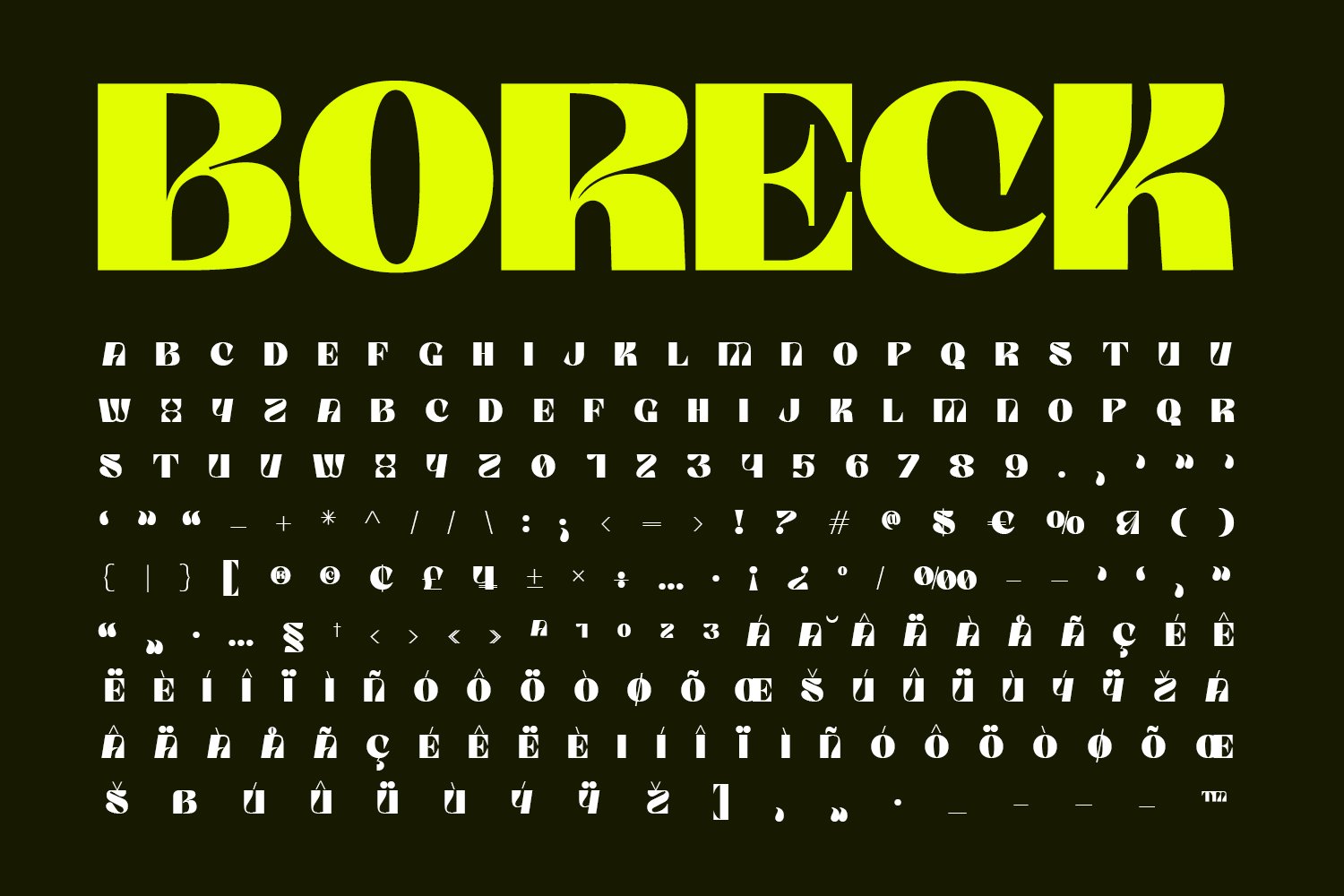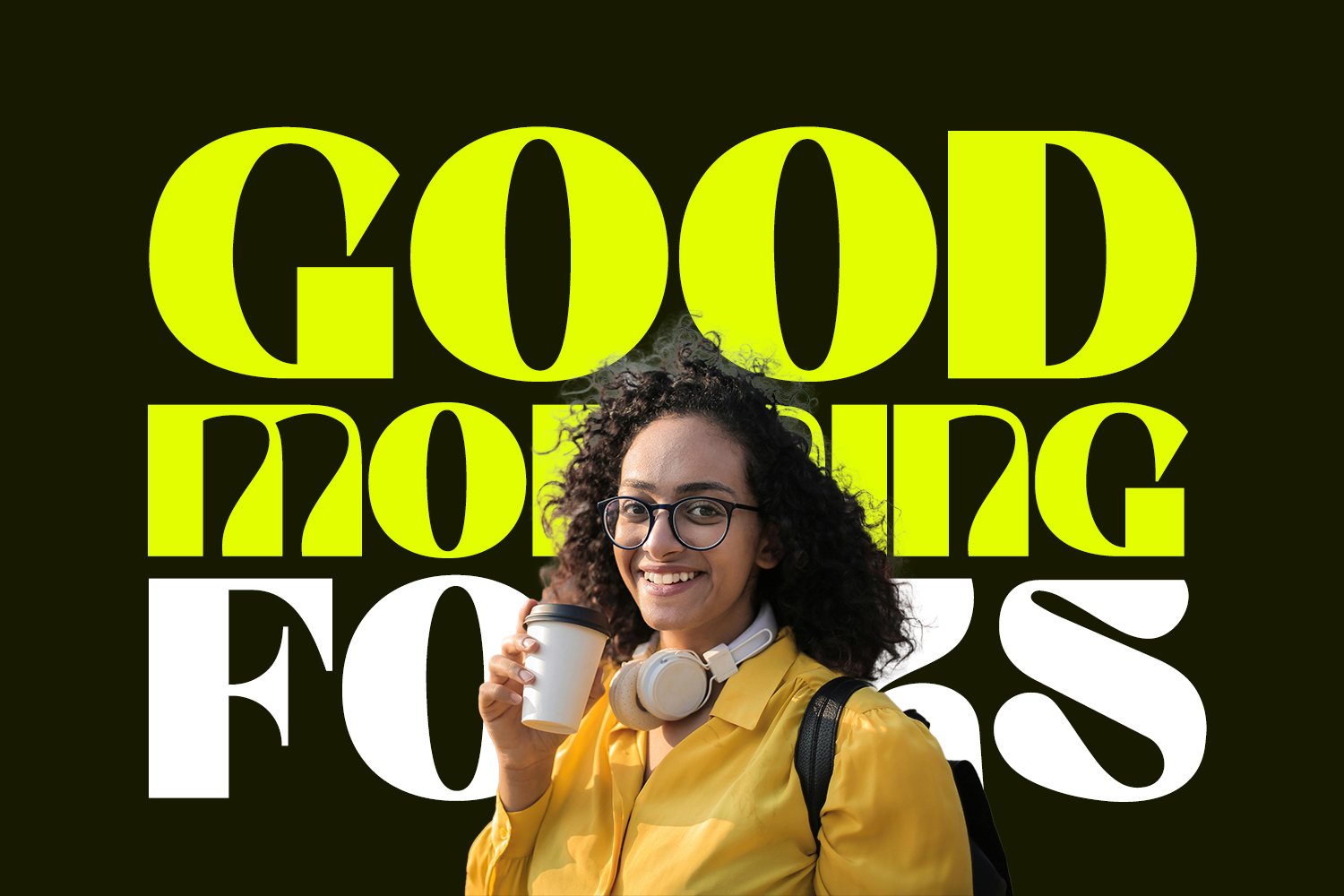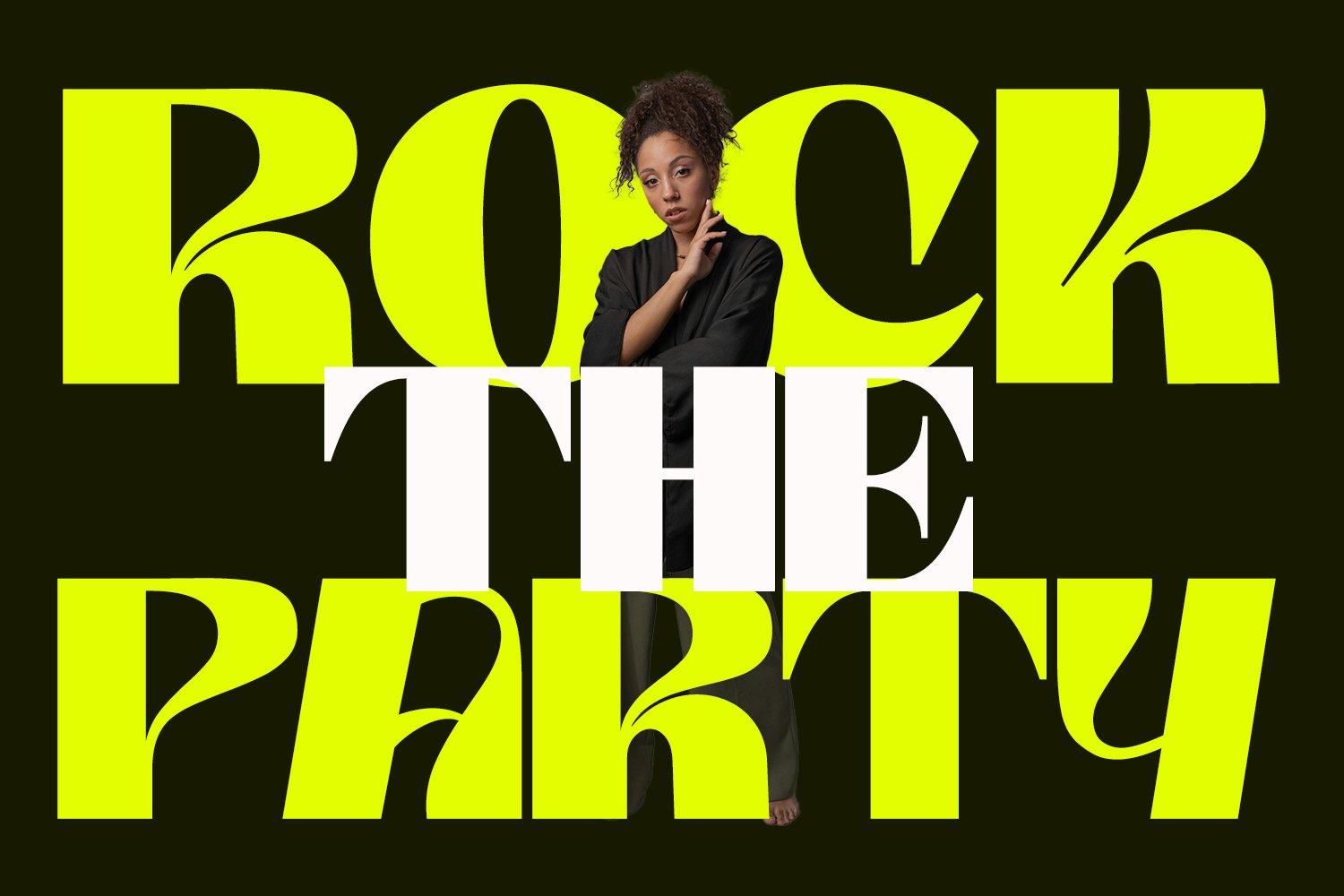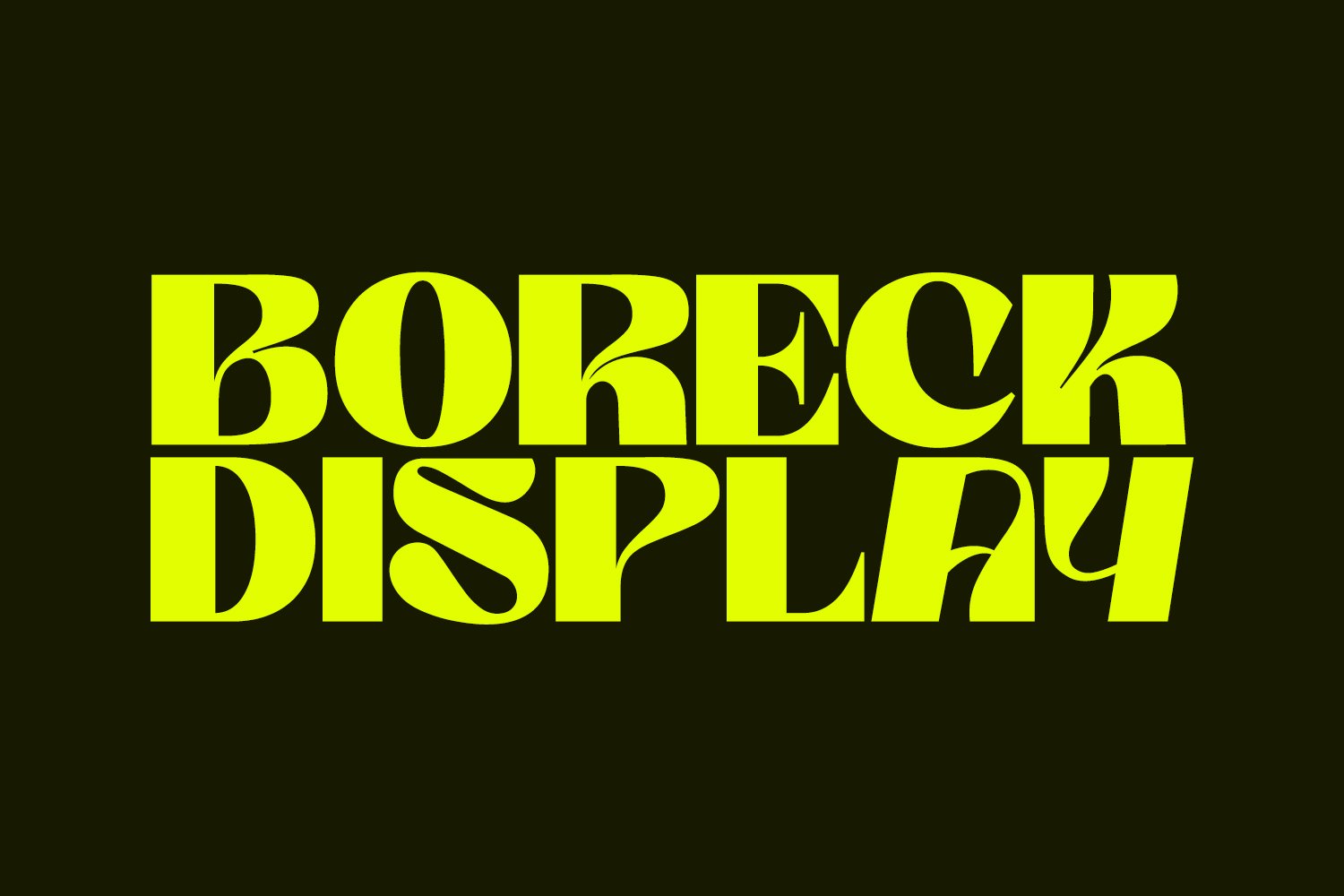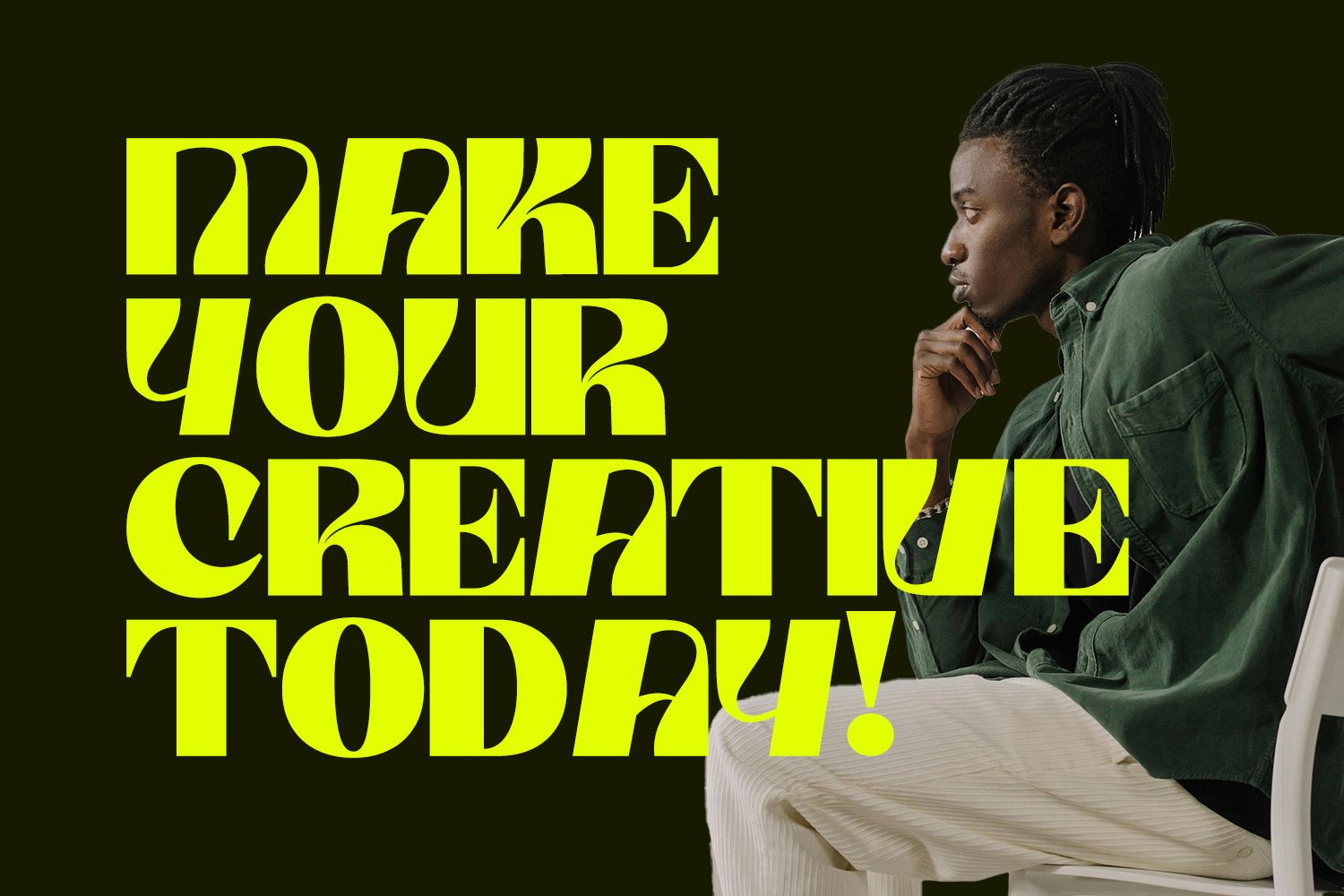
Boreck Display Font
Boreck Display is a bold and eye-catching display typeface designed to make your creative projects stand out. With its unique geometric cuts, modern curves, and dynamic letterforms, Boreck Display brings a fresh and stylish vibe to any design.
Perfect for posters, branding, headlines, social media graphics, packaging, album covers, and event promotions, this font ensures your message is always loud and clear. Its experimental yet balanced style gives both retro charm and contemporary appeal, making it a versatile choice for designers who want something different and memorable. Whether you’re designing for music, fashion, nightlife, or modern businesses, Boreck Display will make your typography pop with energy and personality.